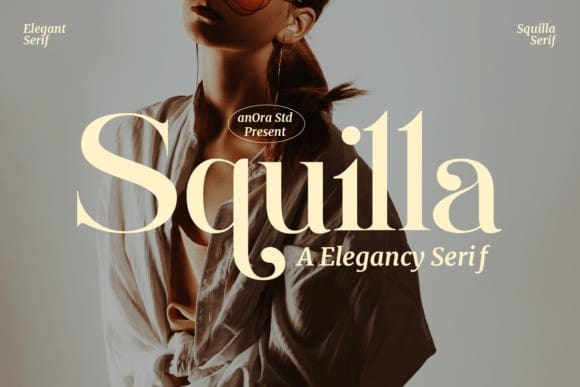
Squilla Font
Squilla Font, embodies sophistication as an elegance serif font, exuding timeless charm and refined style. This typeface offers a touch of flair with its stylistic alternates, providing flexibility for creative expression. Elevate your projects with Squilla’s graceful serifs and tasteful design, making it the perfect choice for adding a touch of classic beauty to your typographic endeavors.